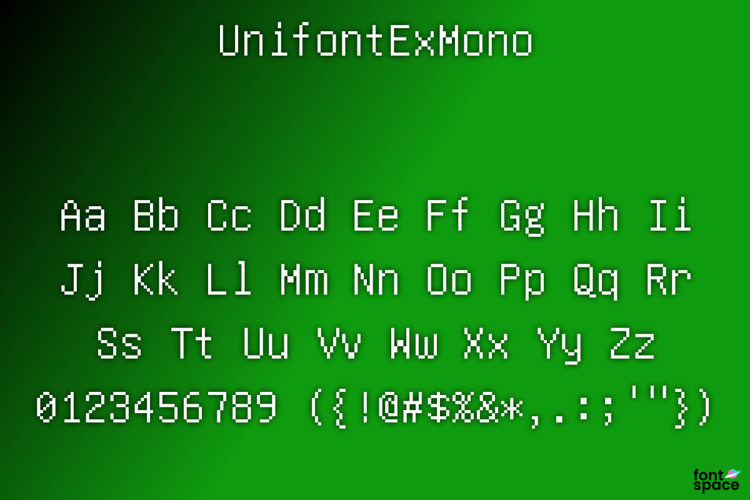
UnifontEX Font
This project was ALWAYS about trying to improve GNU Unifont however I could. Well, I would have to say that I've had a few years to think things over more.
The 2017 old version was:
"Just a quick, legit compilation of Fairfax and all 3 Unifont 9.0.0.6's. More to come."
Well, IT DID! God, has that old version aged terribly. It didn't even follow the pixel grid. Here it is for your enjoyment: https://github.com/stgiga/gigaware/blob/main/GNUUnifont9FullHintInstrUCSUR.ttf
After all these years, this project has now become Unifont-JP 15.0.06 merged with Unifont 11.0.01 Upper (MUCH more character coverage). The 6 years I spent making an improved Unifont have finally culminated in UnifontEX, and I'm happy to have finished this long project after so long. Here is some more documentation: https://stgiga.github.io/UnifontEX
2024:
A bugfix update was made in December 2023 on a backup computer (long story, my data is safe), and it adds the JSTF table too!
February 2nd, 2024:
MATH, BASE, and VDMX tables added to improve rendering, and after further testing they don't break anything as had previously been thought.
December 12th, 2024:
Added Unicode 15.1 glyphs.
September 2025:
Added Unicode 16 glyphs.
September 2026:
Added Unicode 17 glyphs.
CKJs are too far from each other when I tested the change preview
I learned a lot in the last 6 years.
There are a few inconsistencies....